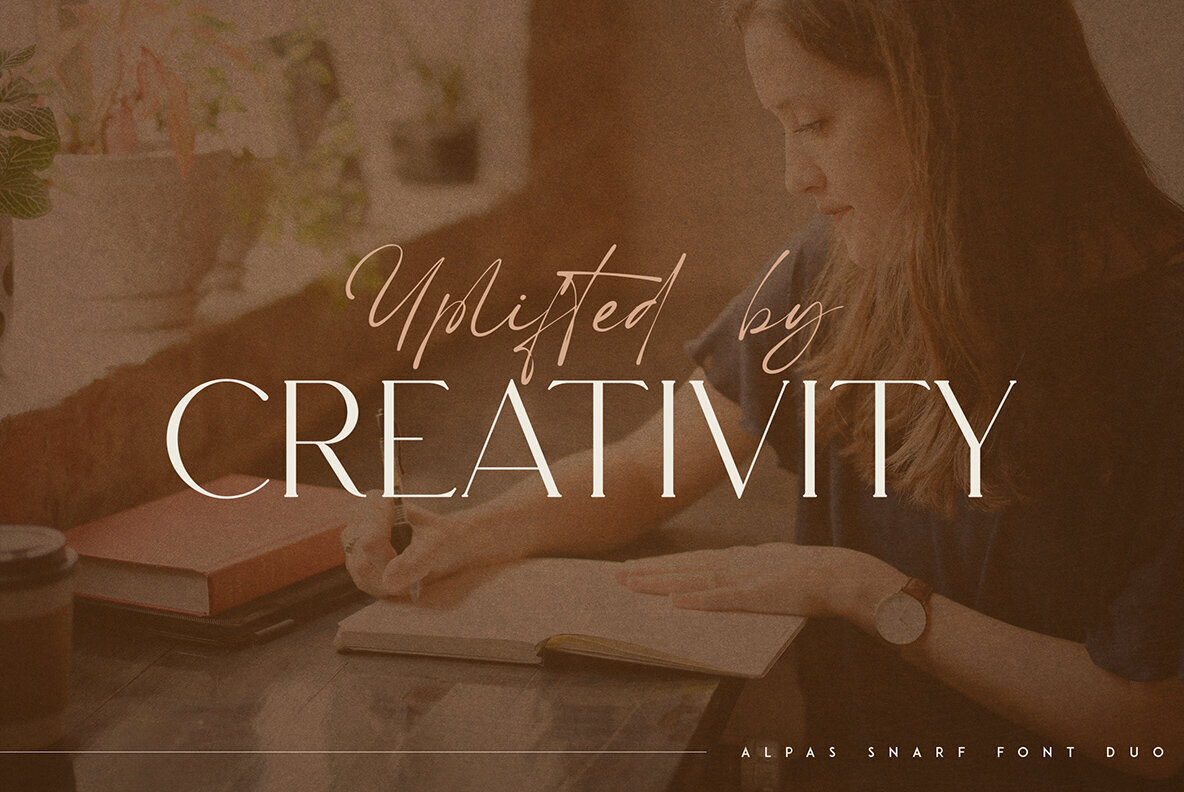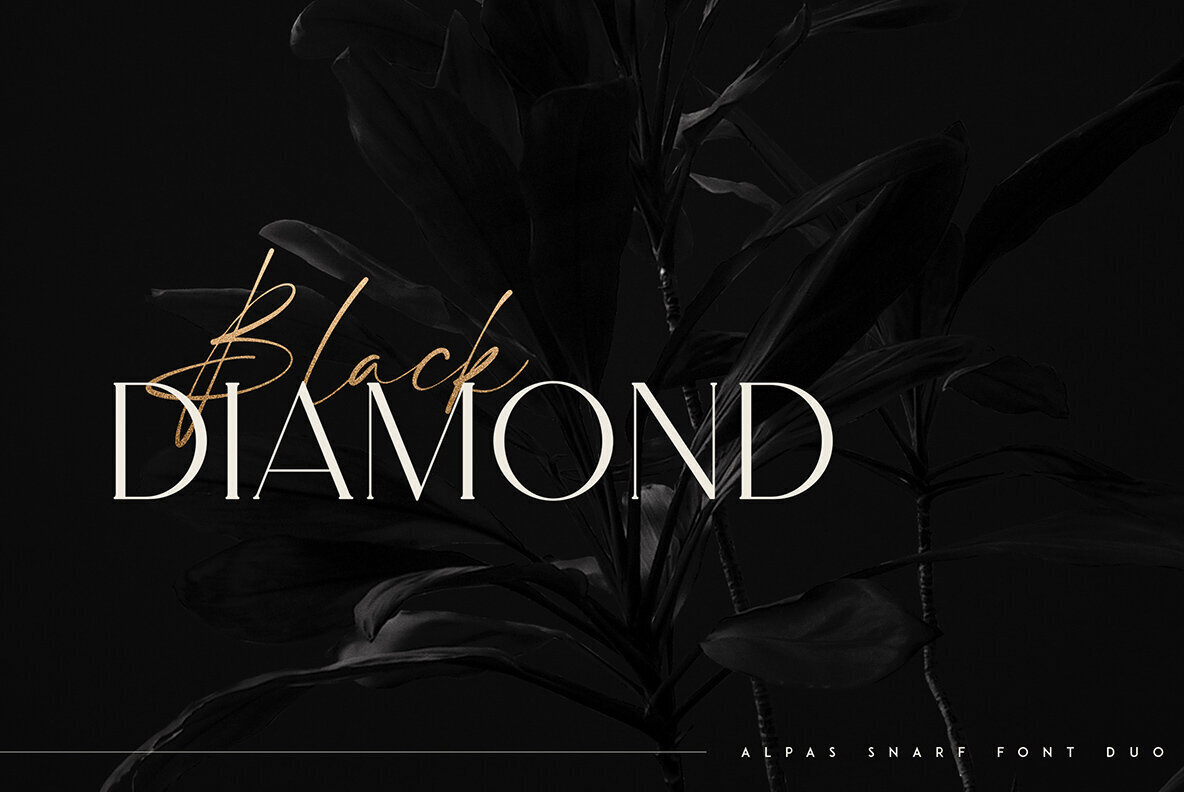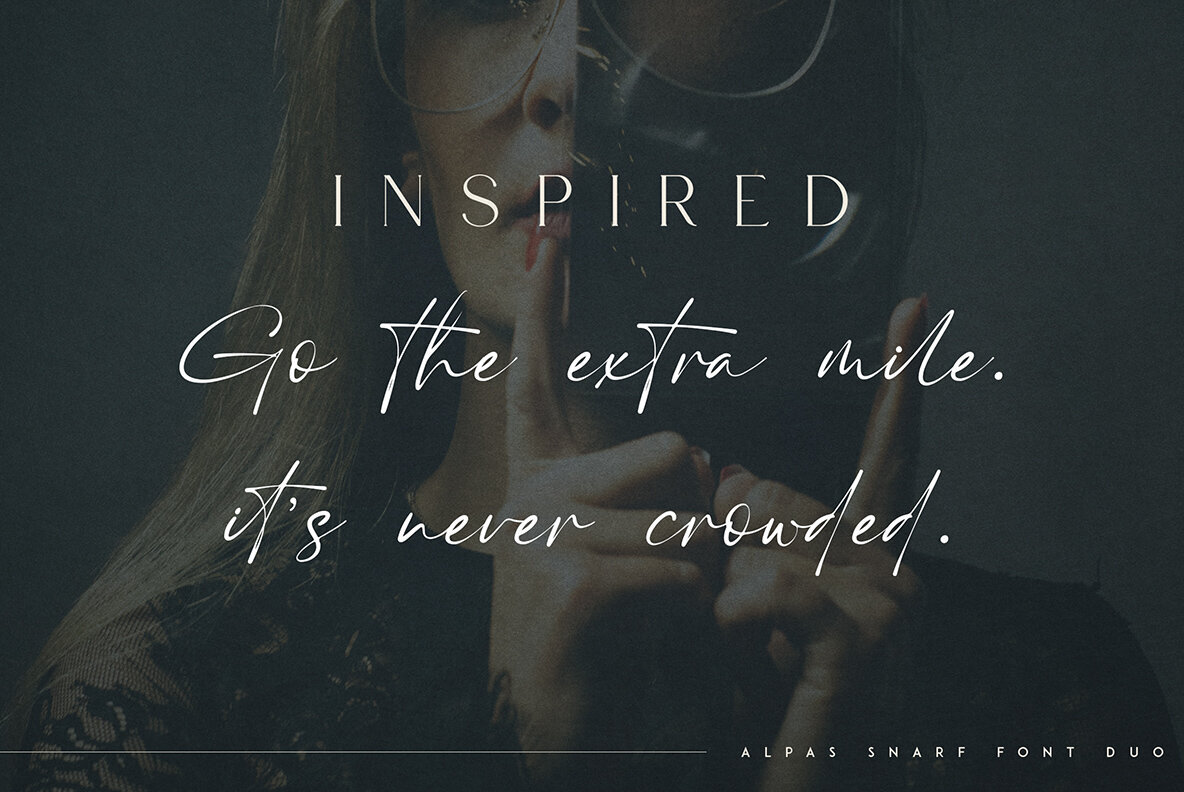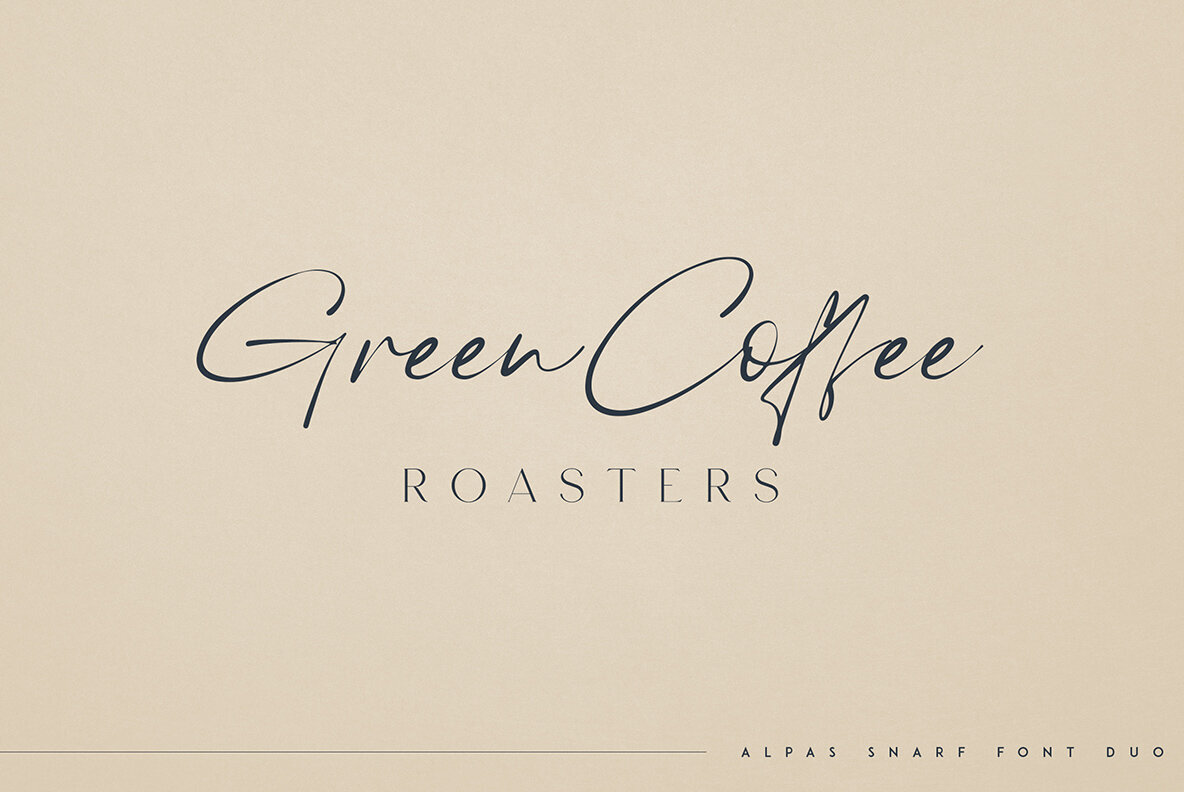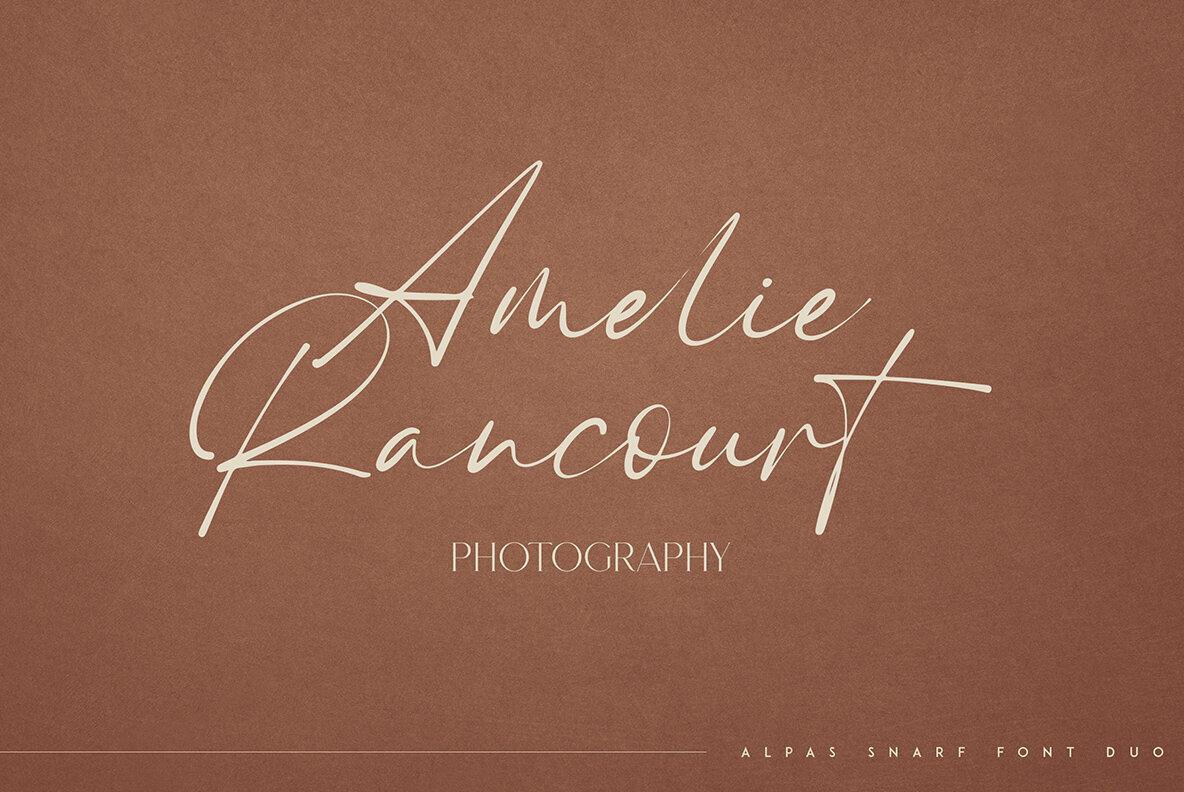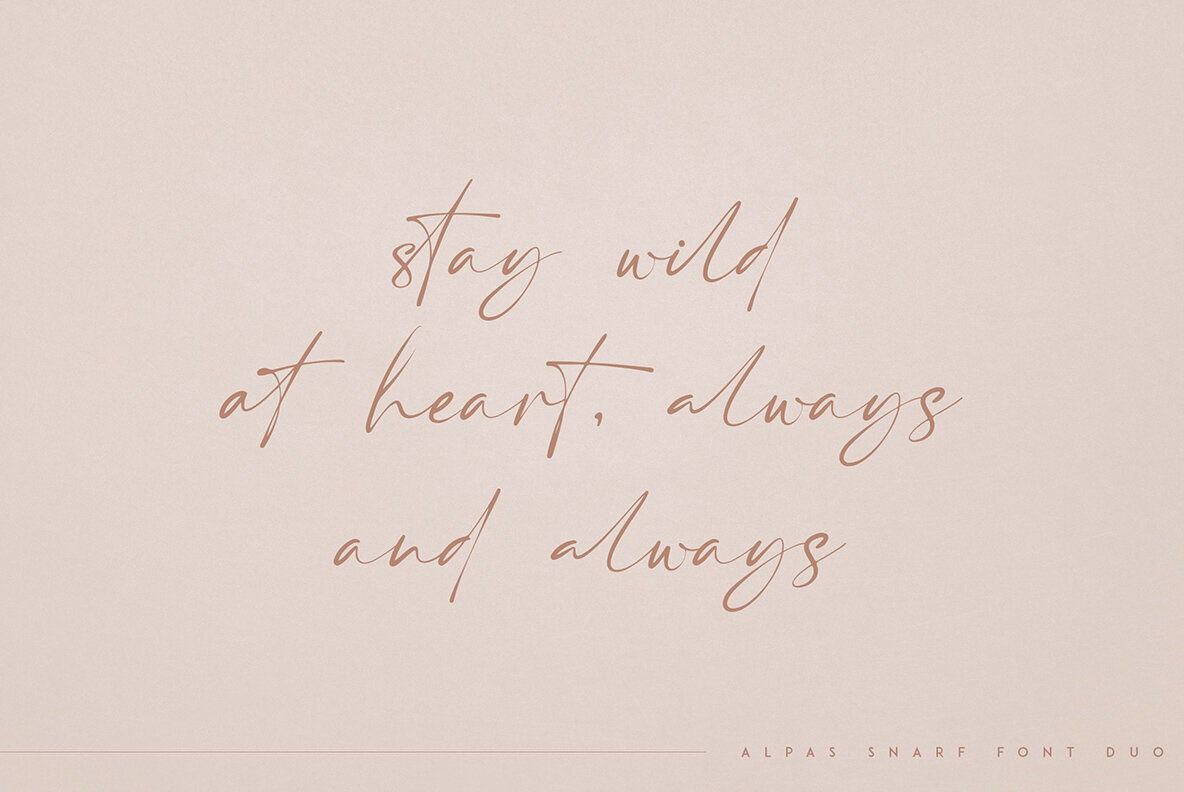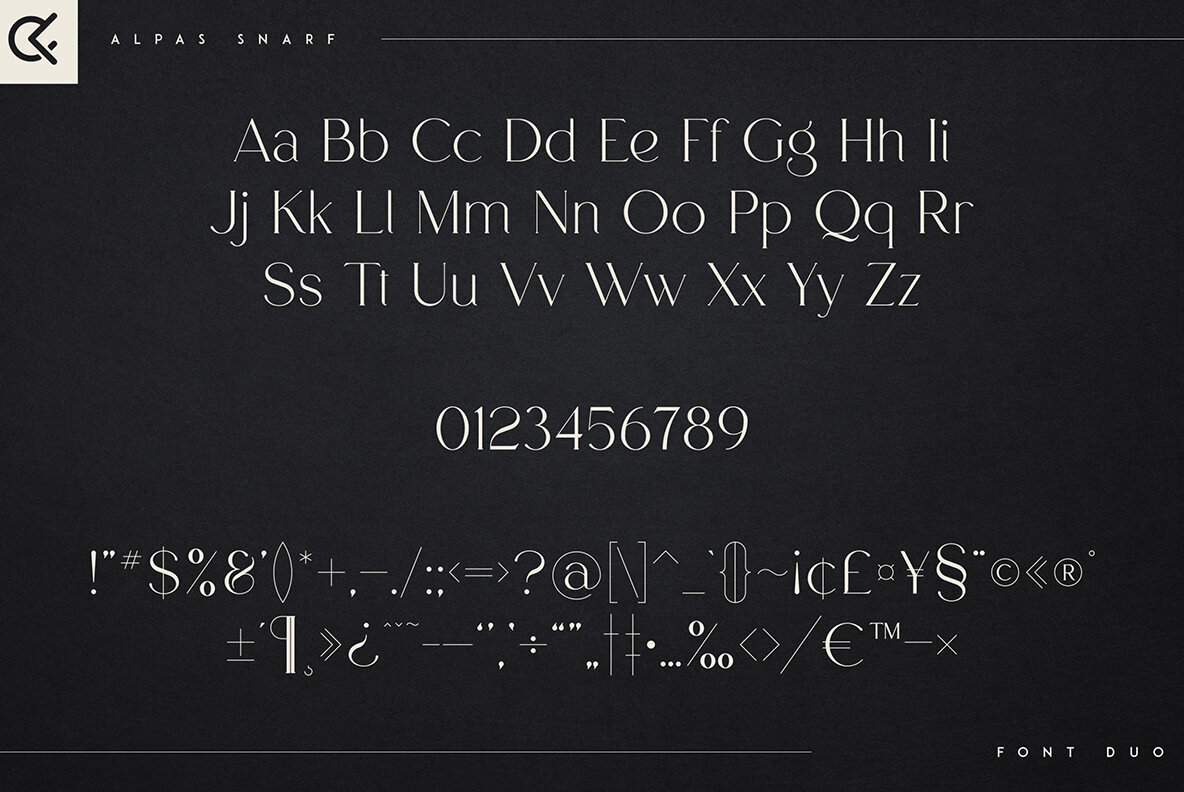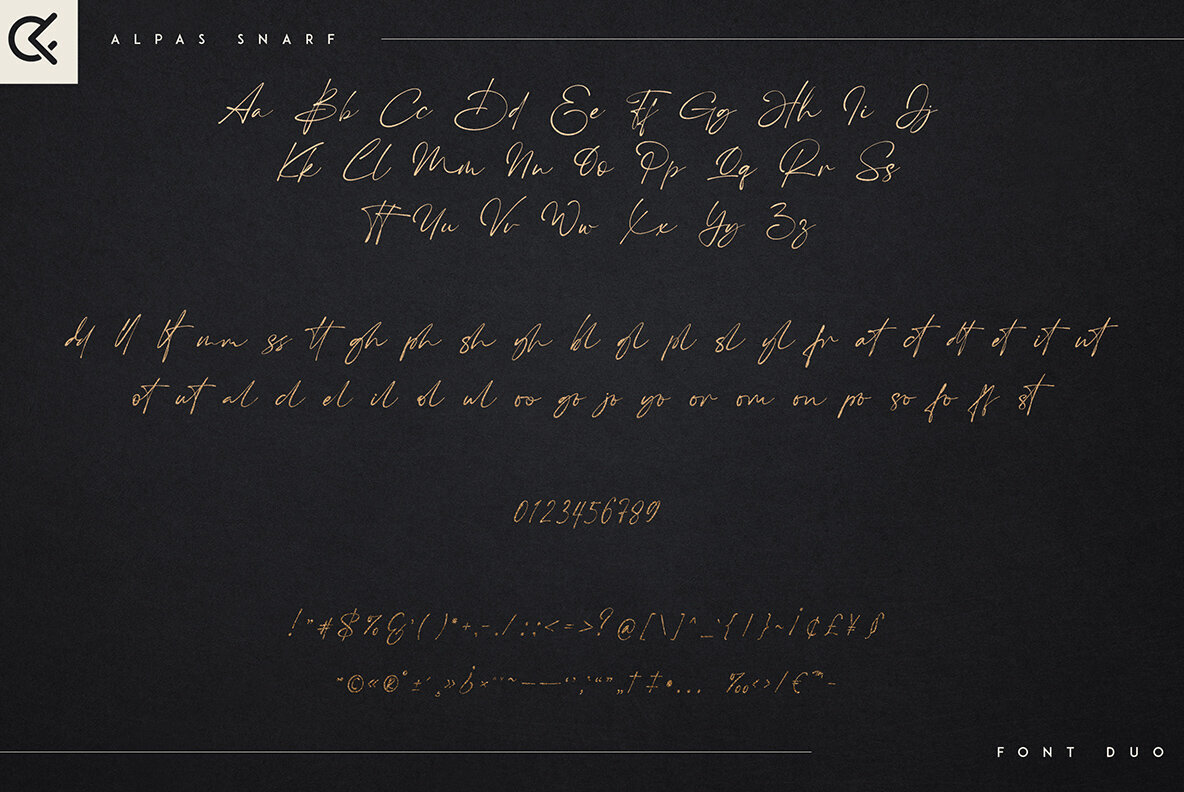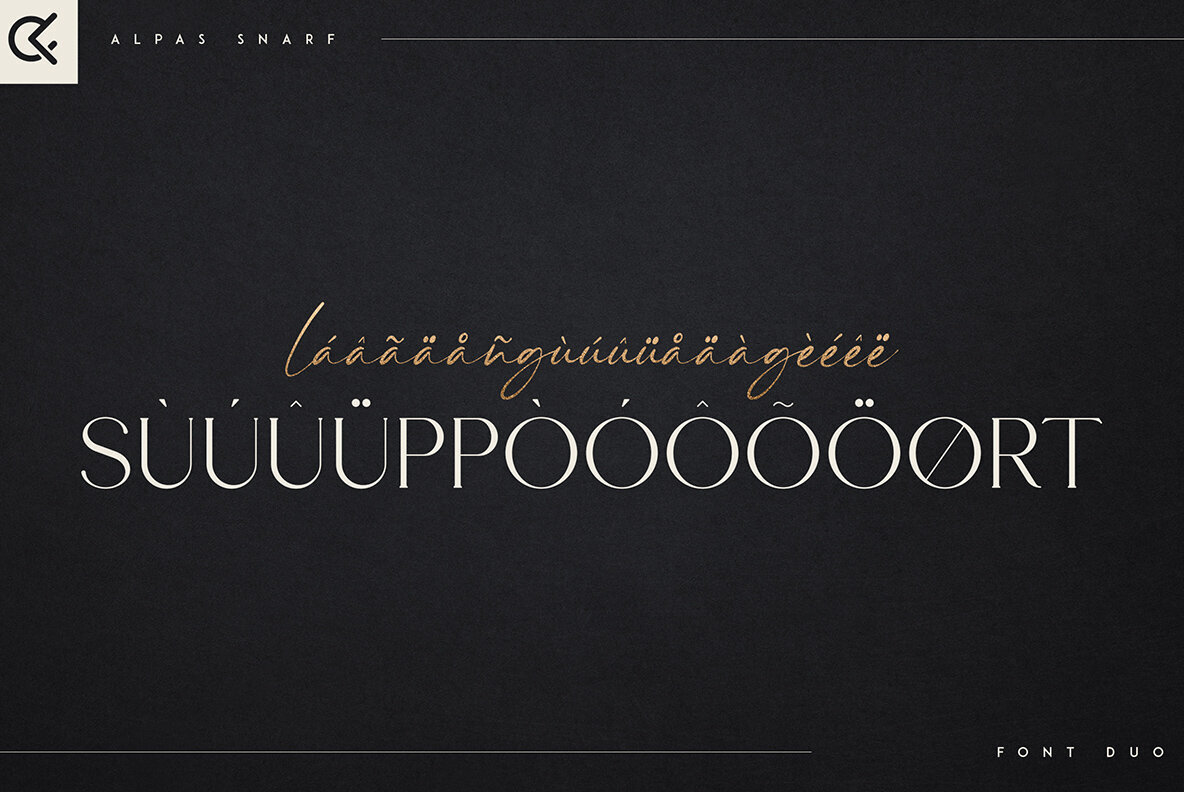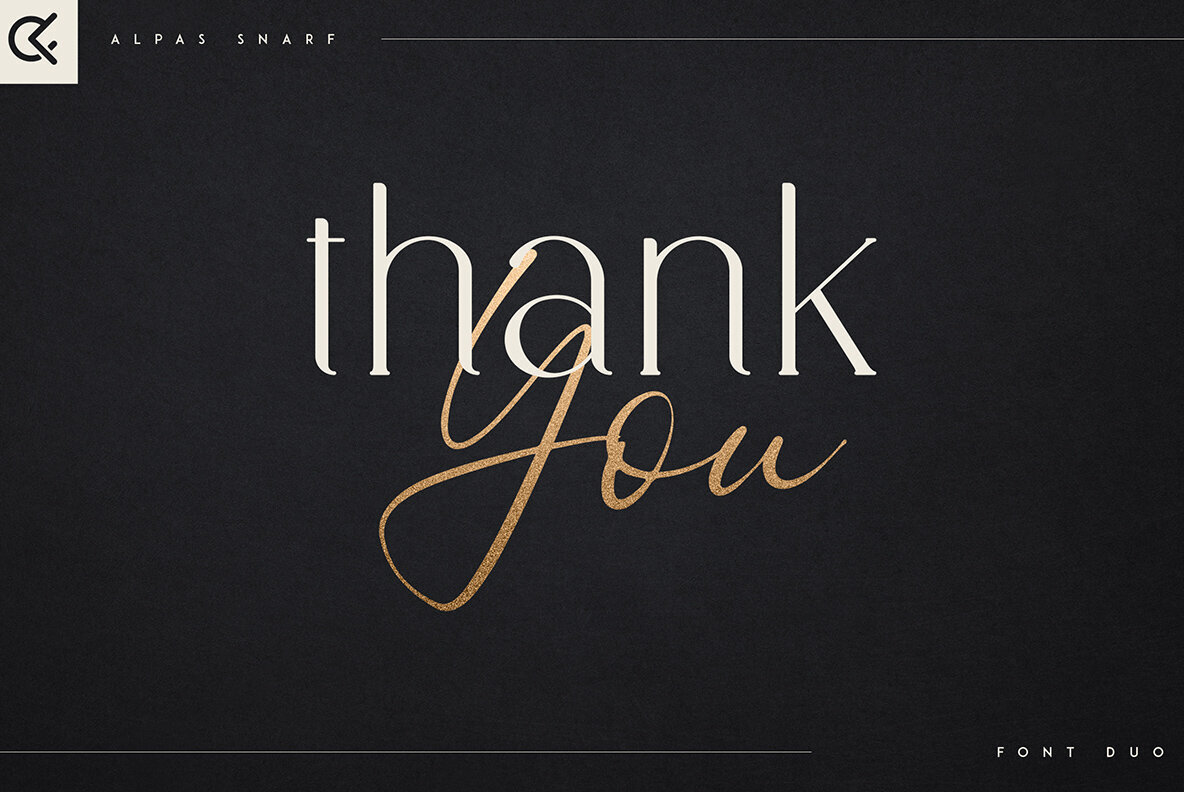
Alpas and Snarf Font
Alpas Regular
Snarf Regular
Alpas Italic
The Alpas & Snarf font duo elegantly combines luxury and fragility while offering multilingual support, making it a versatile choice for various design projects. This duo excels in both large and small sizes, fitting perfectly into branding projects, home-ware designs, product packaging, magazine headers, or as a stylish text overlay on any background image. Key features include uppercase, numeral, punctuation, and symbol characters, a serif style, italic design, handwritten script, and multilingual support. No special software is needed for typing out the standard characters of the Typeface, and it is Canva friendly for added ease of use.